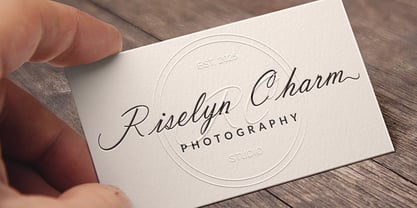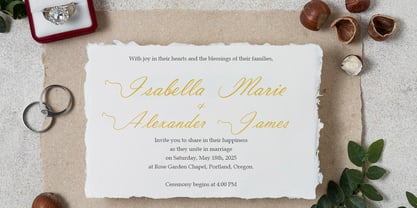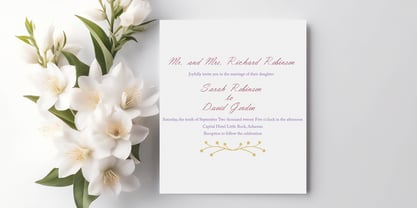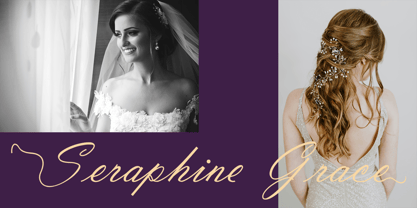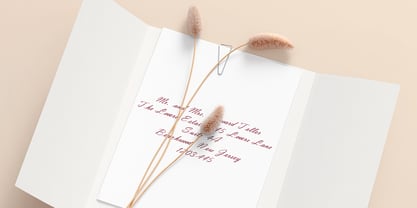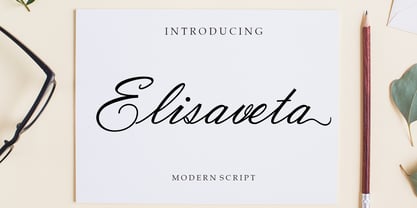
Elisaveta
by Zaki Creative
The Elisaveta Font Family was designed by Teuku Muhammad Zaki and published by Zaki Creative. Elisaveta contains 1 styles. More about this family
Introducing Elisaveta, a modern script font that blends classic elegance with contemporary flair. Each letter is crafted with meticulous attention to detail, resulting in graceful curves and refined strokes that elevate any design project. Elisaveta is perfect for designers seeking a balance between luxury and readability, making it ideal for high-end branding, sophisticated wedding invitations, elegant stationery, or any project that demands a touch of class.
Whether you're working on product packaging, social media posts, or editorial layouts, Elisaveta will bring a sense of refinement to your work. Its fluid lines and smooth transitions create a natural flow, adding a timeless charm to both digital and print materials. The font’s versatility makes it suitable for everything from minimalist designs to more elaborate, artistic creations.
Elisaveta is designed to be more than just a typeface; it's a statement. It reflects a sense of sophistication and luxury, making it an exceptional choice for those who wish to stand out and leave a lasting impression.
Designers: Teuku Muhammad Zaki
Foundry: Zaki Creative